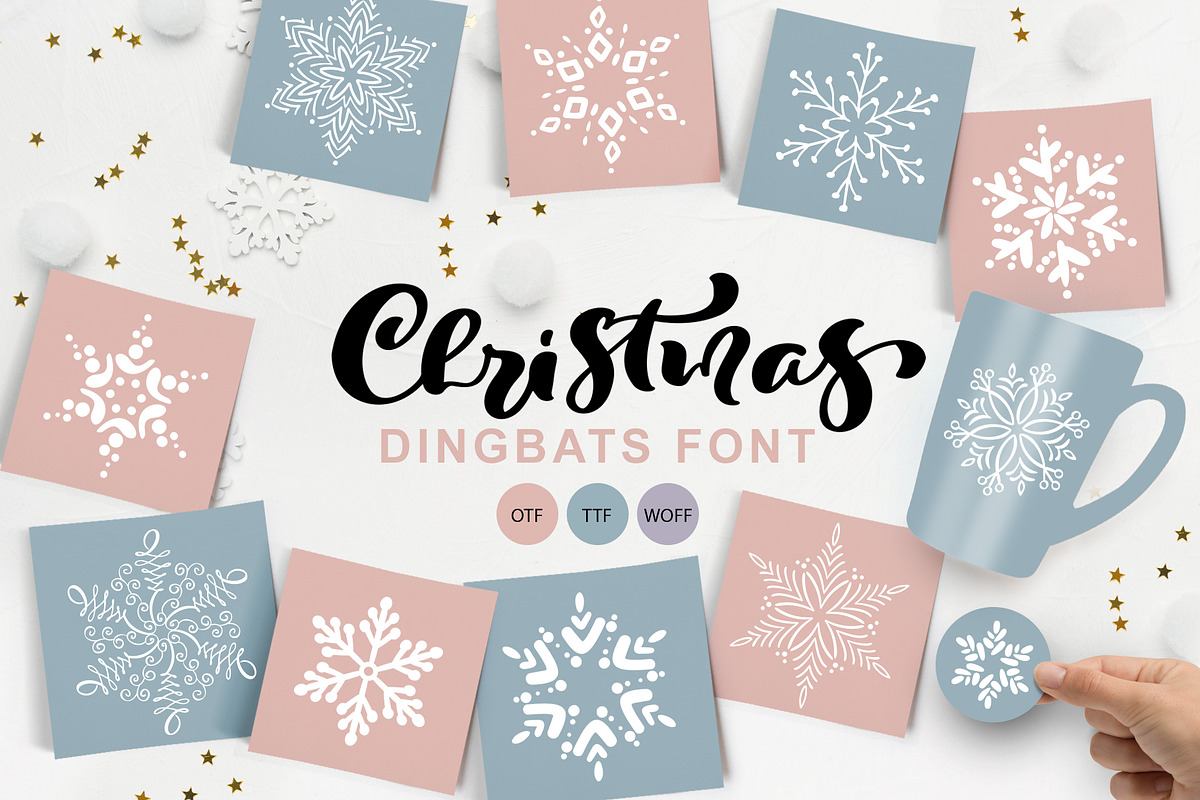
Christmas Snowflake Dingbats Free Download
Christmas Snowflake Dingbats Font Free Download
Christmas Snowflake Dingbats Font Free Download is a festive collection of snowflake-themed symbols, perfect for bringing seasonal magic to your designs. From intricate icy patterns to whimsical winter icons, each character in this dingbat font adds a unique snowflake element ideal for holiday cards, gift tags, seasonal packaging, party invites, and winter-themed crafts.
Easy to use and incredibly versatile, just type a letter and get a beautifully designed snowflake illustration. This font works seamlessly in both digital and print projects, helping you decorate with charm and consistency.